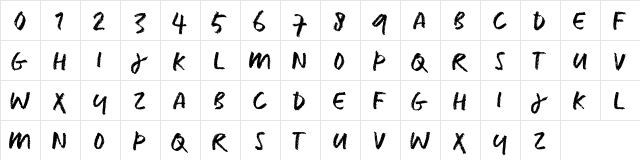
CAPUT_TRIAL Regular
| Foundry | Geert@JOEBOB Graphics |
| Designer | Geert Dijkers |
Design Context for CAPUT_TRIAL Typeface
CAPUT_TRIAL is a composed and adaptable typeface that performs quietly and consistently across a wide range of design contexts.